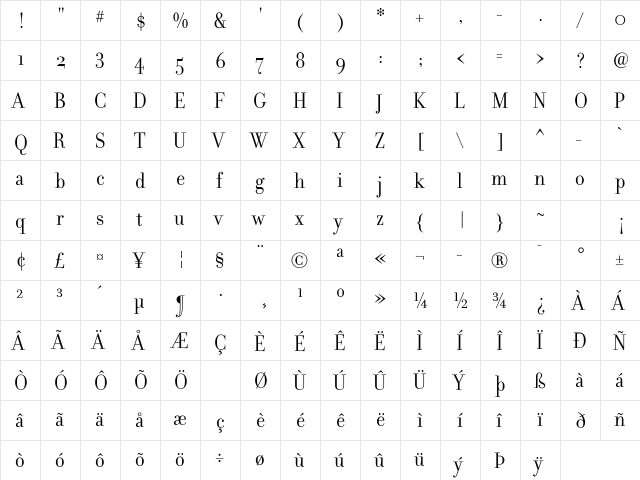
FilosofiaGrand Roman
FilosofiaGrand offers clean, dependable letterforms without strong stylistic allegiance, making it a practical choice for designers who need flexibility.